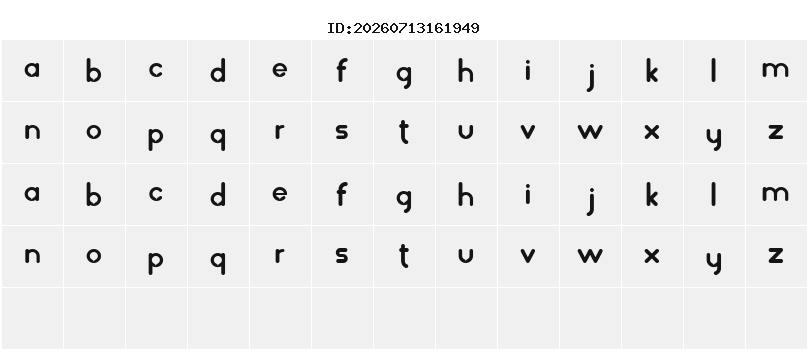
balonez fantasia Preview
About balonez fantasia.ttf
balonez fantasia.ttf is a modern, elegant sans-serif font designed for ultimate readability and visual harmony. Perfect for branding, headlines, web design, and print materials.